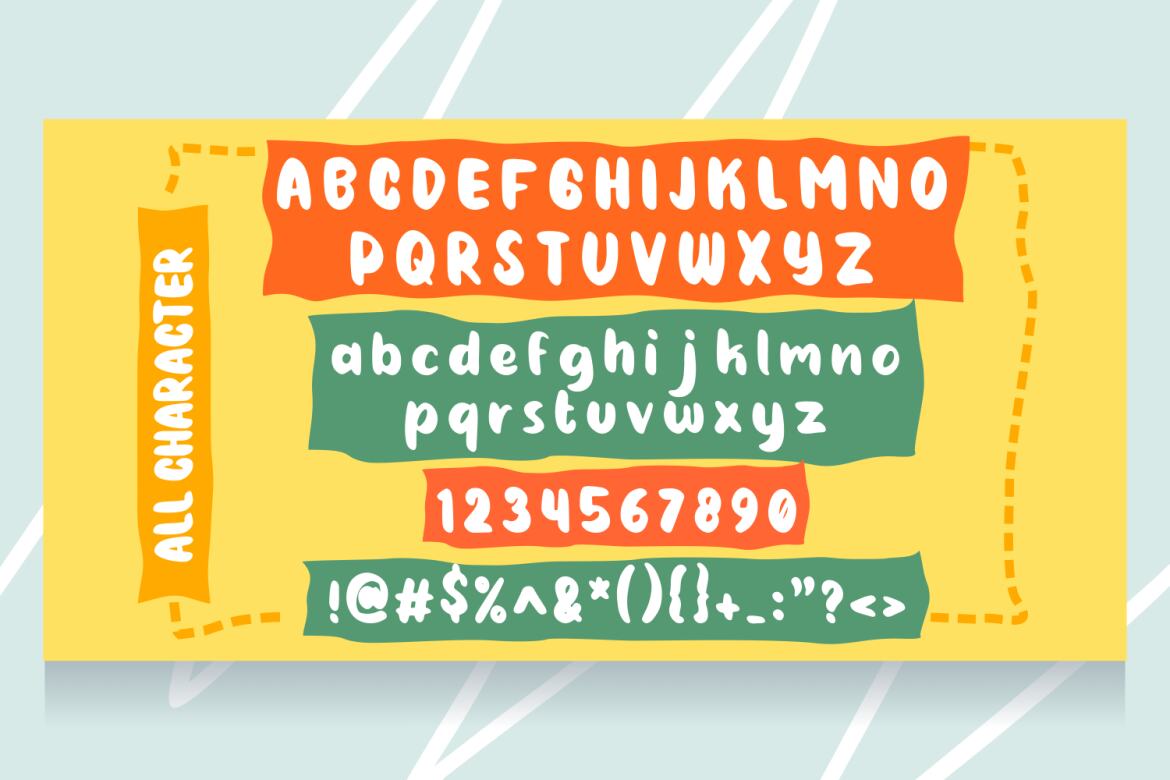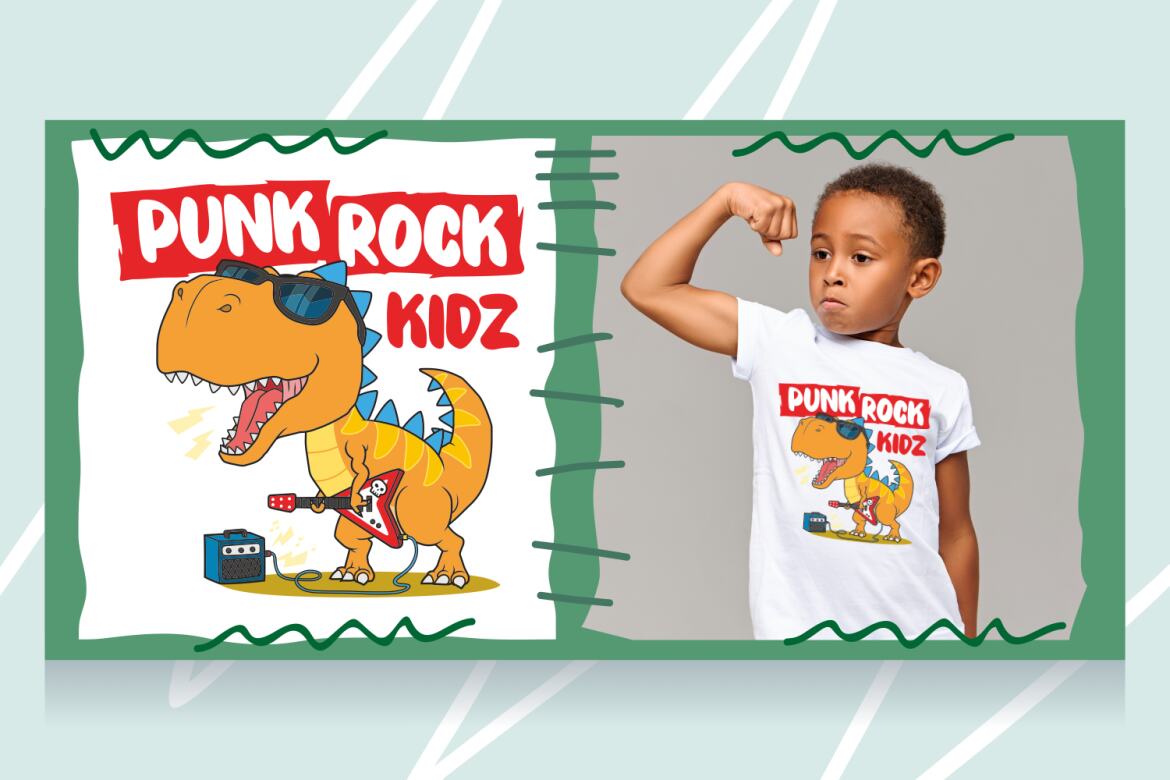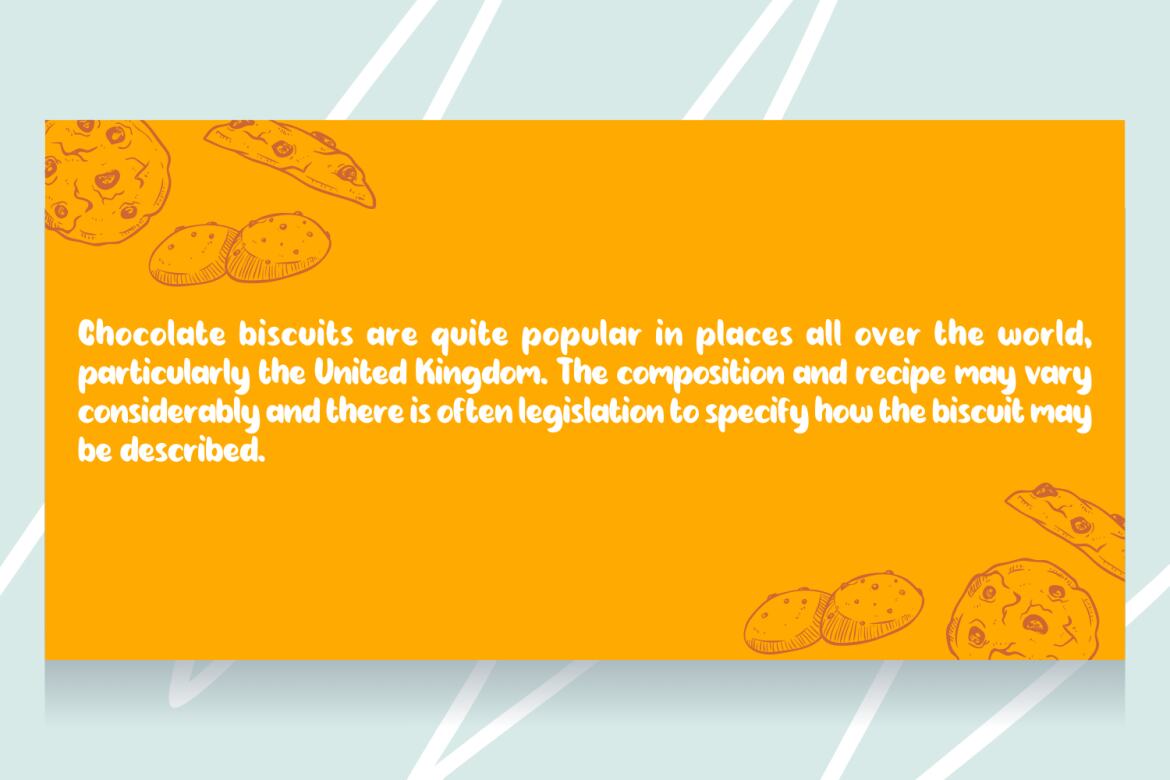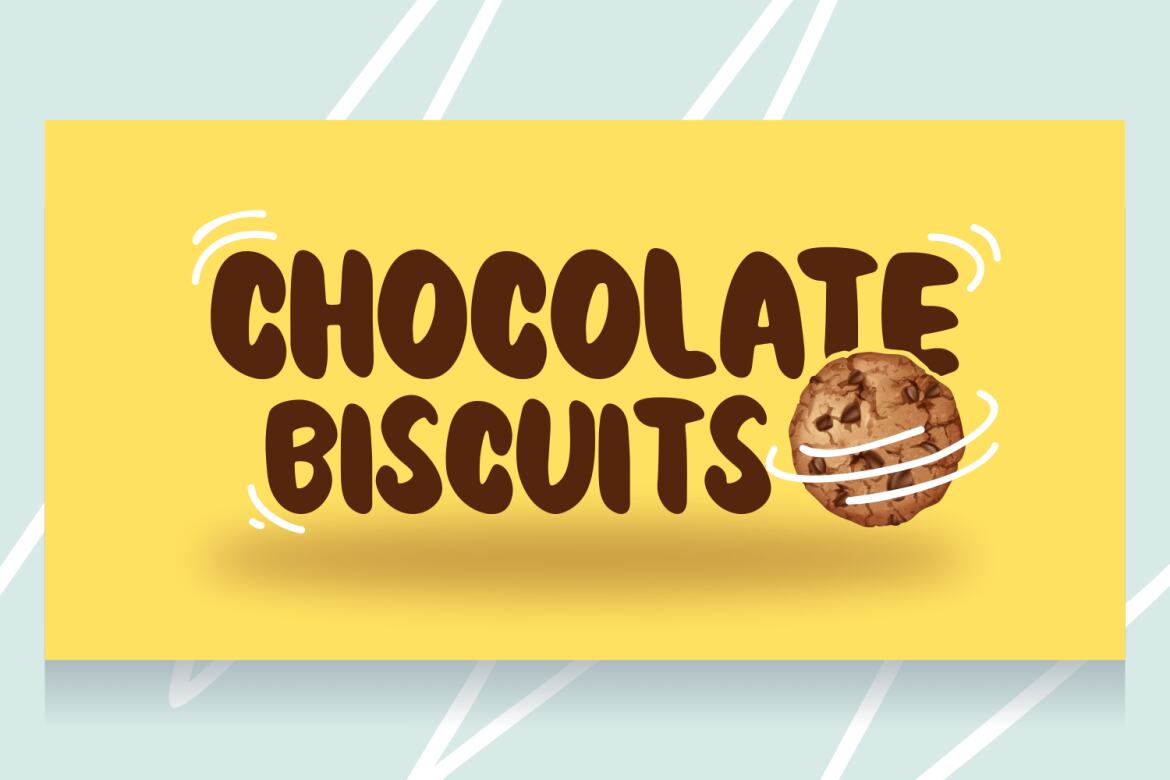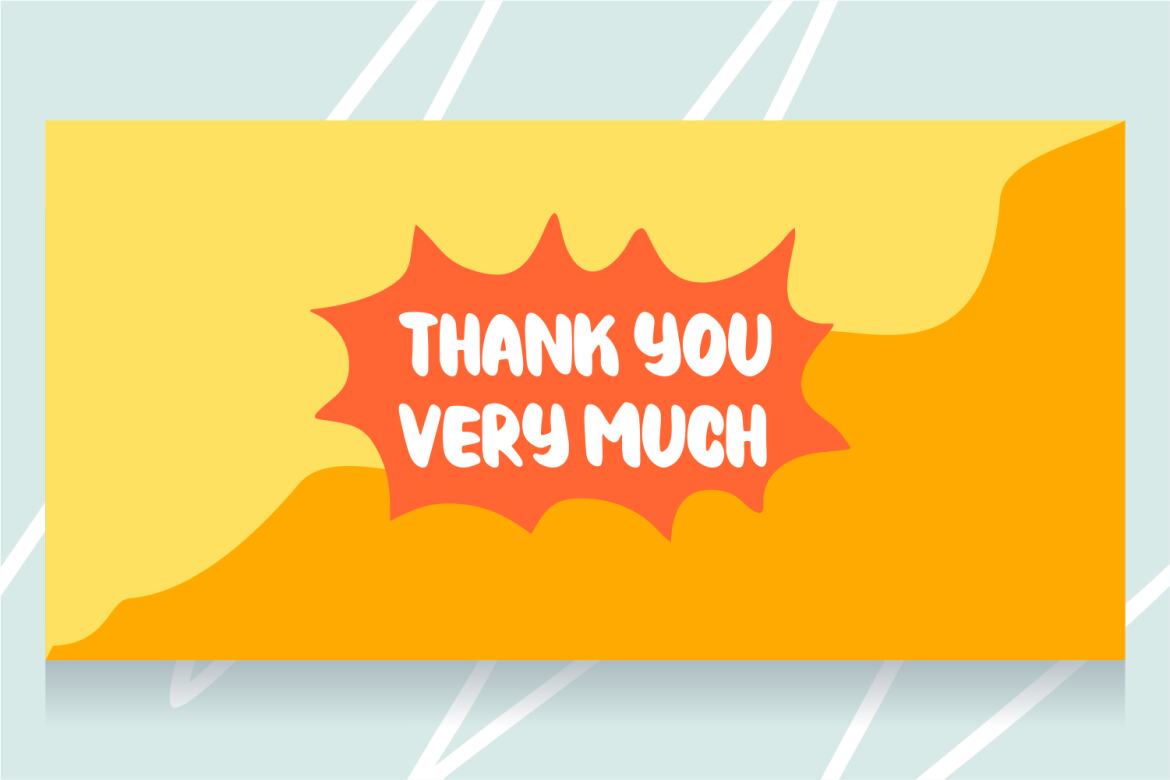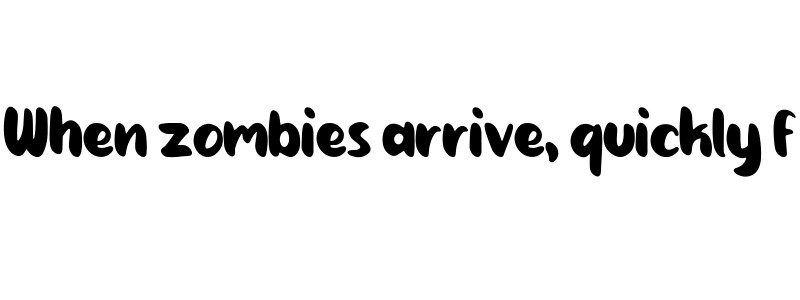
Baby Bison - Free Font
Introducing Baby Bison by Forberas Club
Baby Bison is a Modern Handrawing Font. This font is a handwritten, modern and adaptable thick font. It is the best choice for creating eye catching design, branding and quotes. Every letter has a unique and beautiful touch, which will make your design come alive!